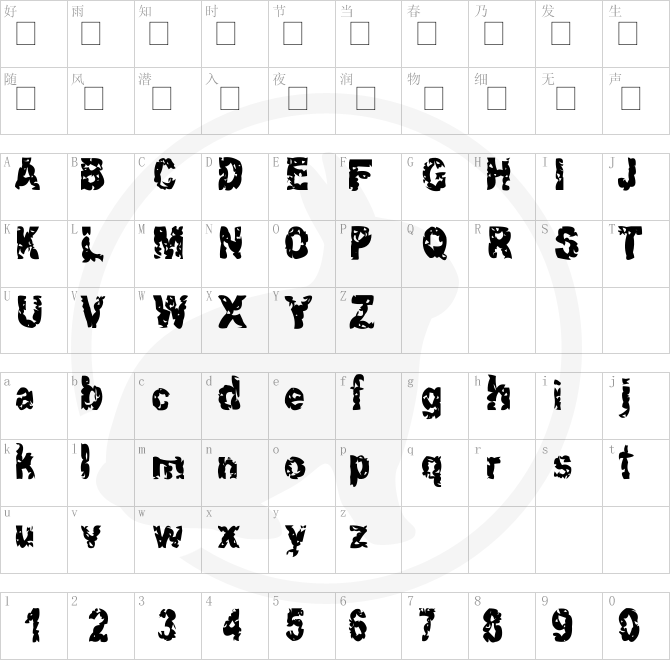
- Font Name:Hacknslash
Hacknslash.ttf is a very beautiful artistic font, Hacknslash.ttf is widely used in the design and printing of various books and pictures,Hacknslash.ttf has a strong visual impact,Hacknslash.ttf is a commonly used font in newspapers, magazines and books, and is used in posters, e-commerce Poster design, store design, logo design, font design and other fields.Hacknslash.